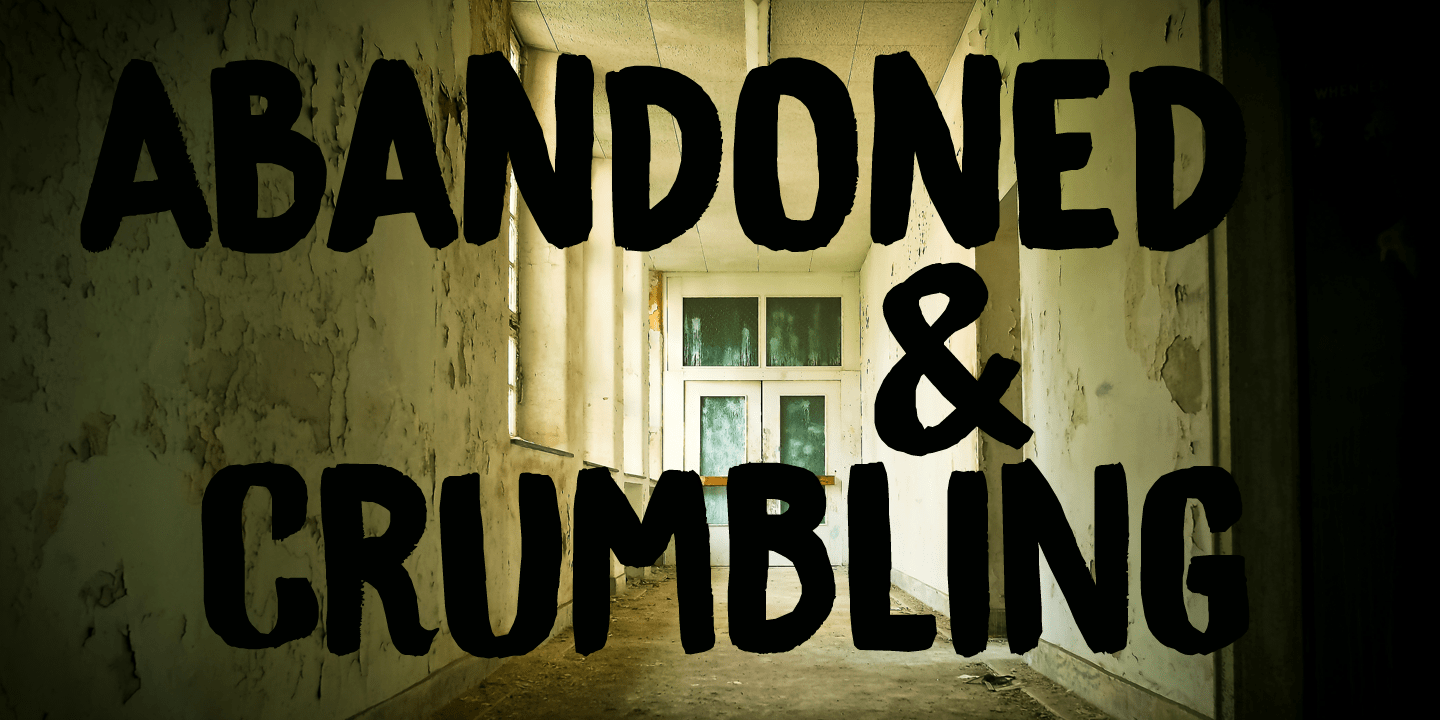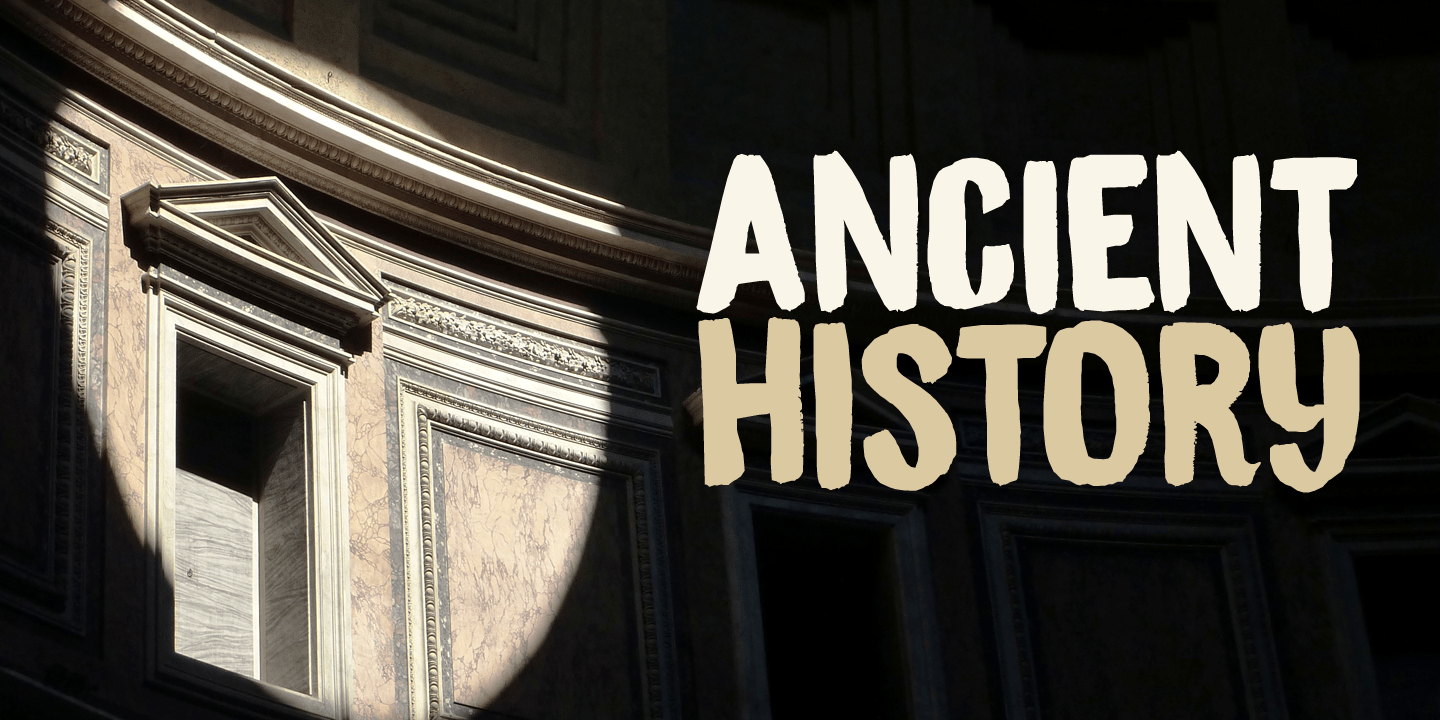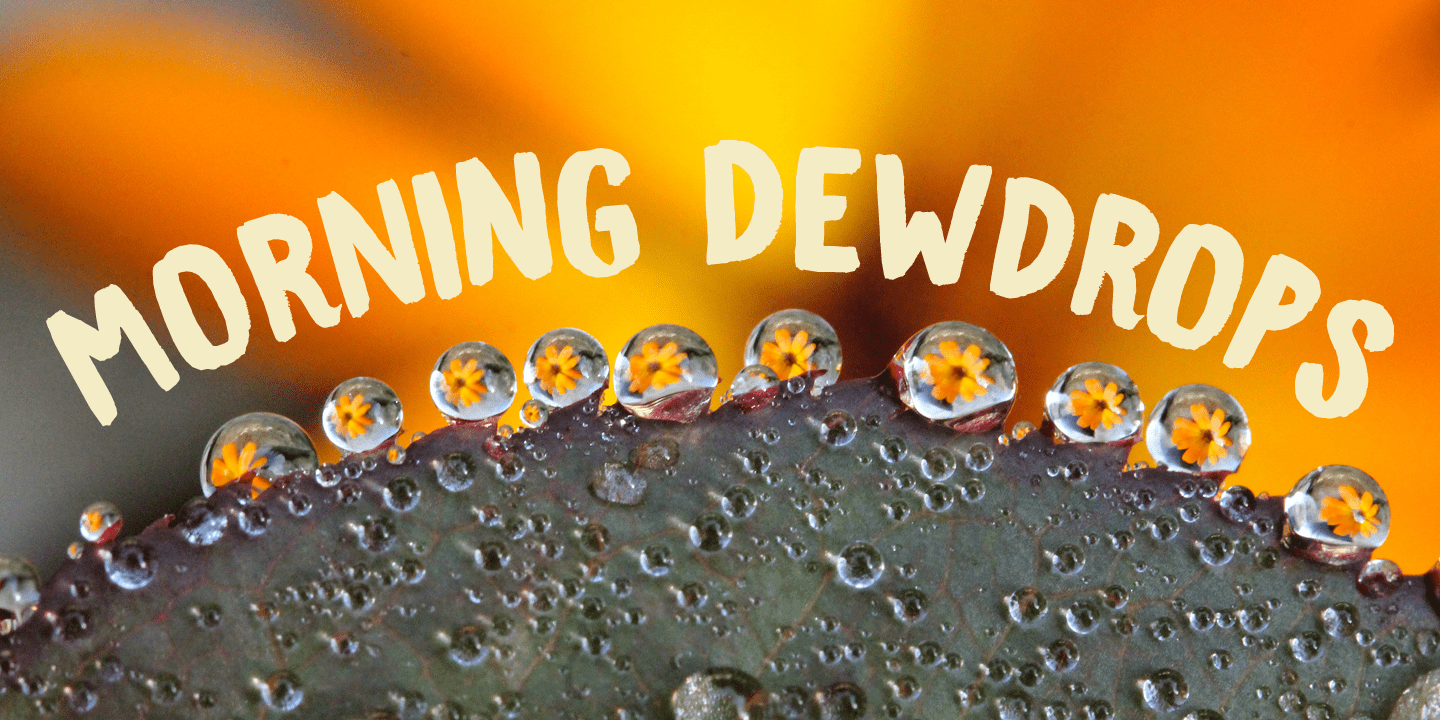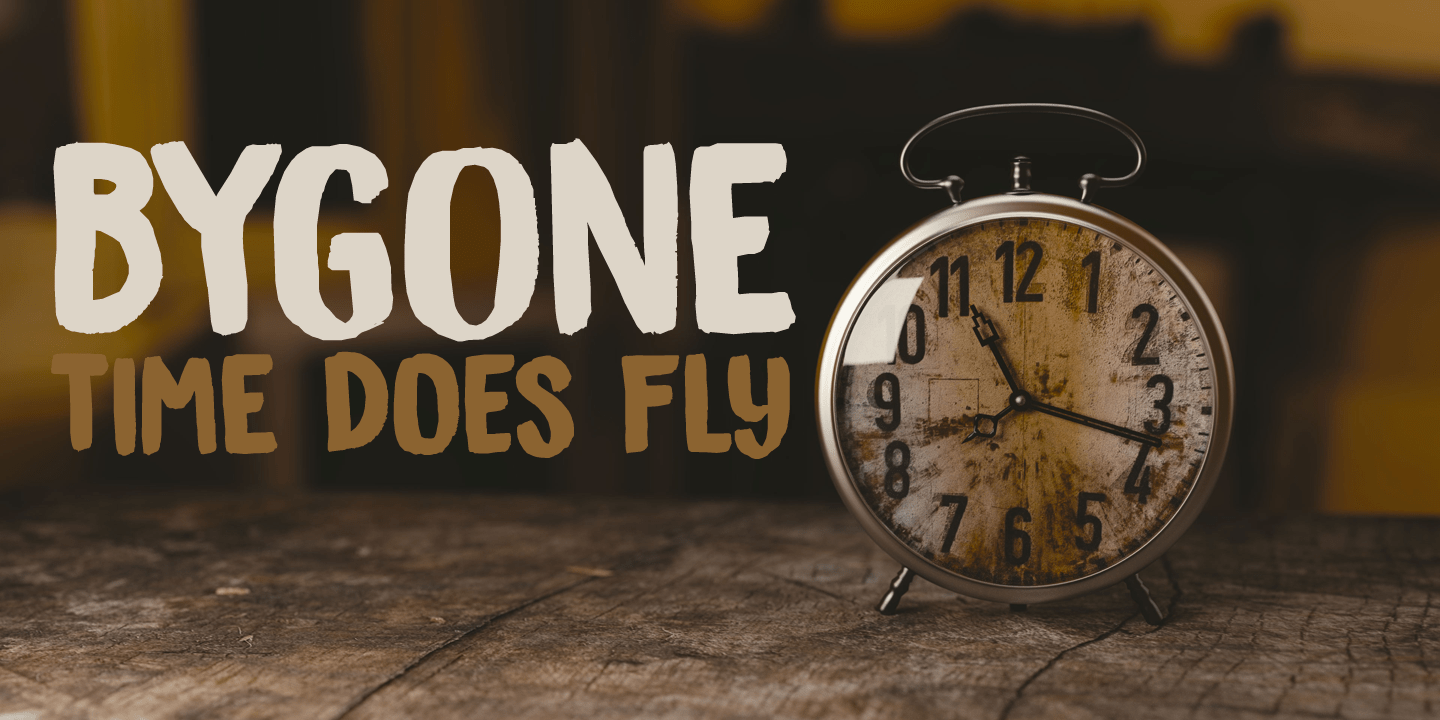
About Bygone
Bygone is an elegant brush font – well, insofar a brush font can actually be elegant that is? It is an all caps typeface, completely handmade using Chinese ink and a rather expensive brush. Use it for posters, book covers and packaging. Comes with an…